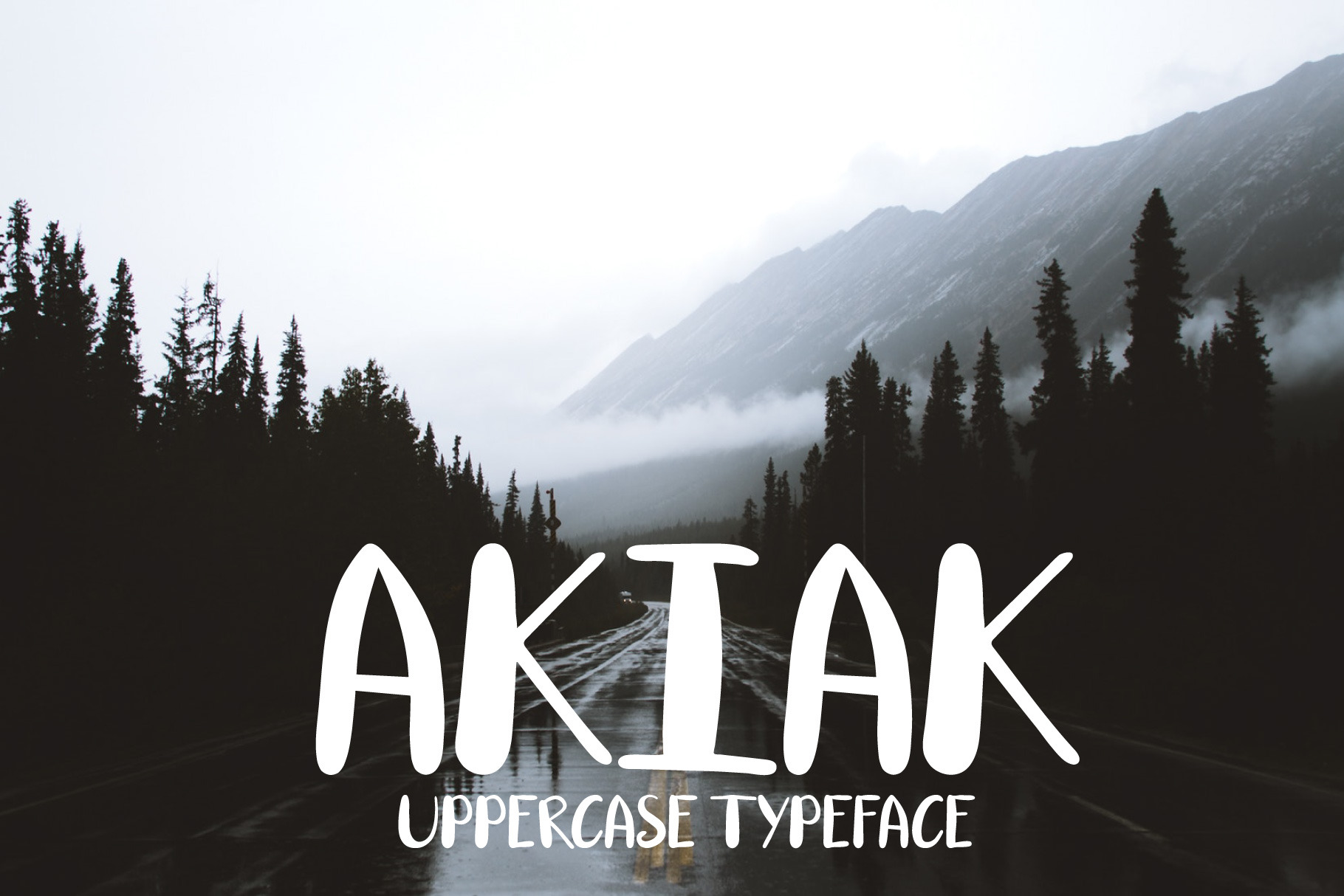
Akiak is a unique handmade all upper case bold typeface (you can type either with all upper case or all lowers case, it doesn’t matter). It is ideal for post cards, greeting cards, logos, packaging, quotes, stationary and so on!